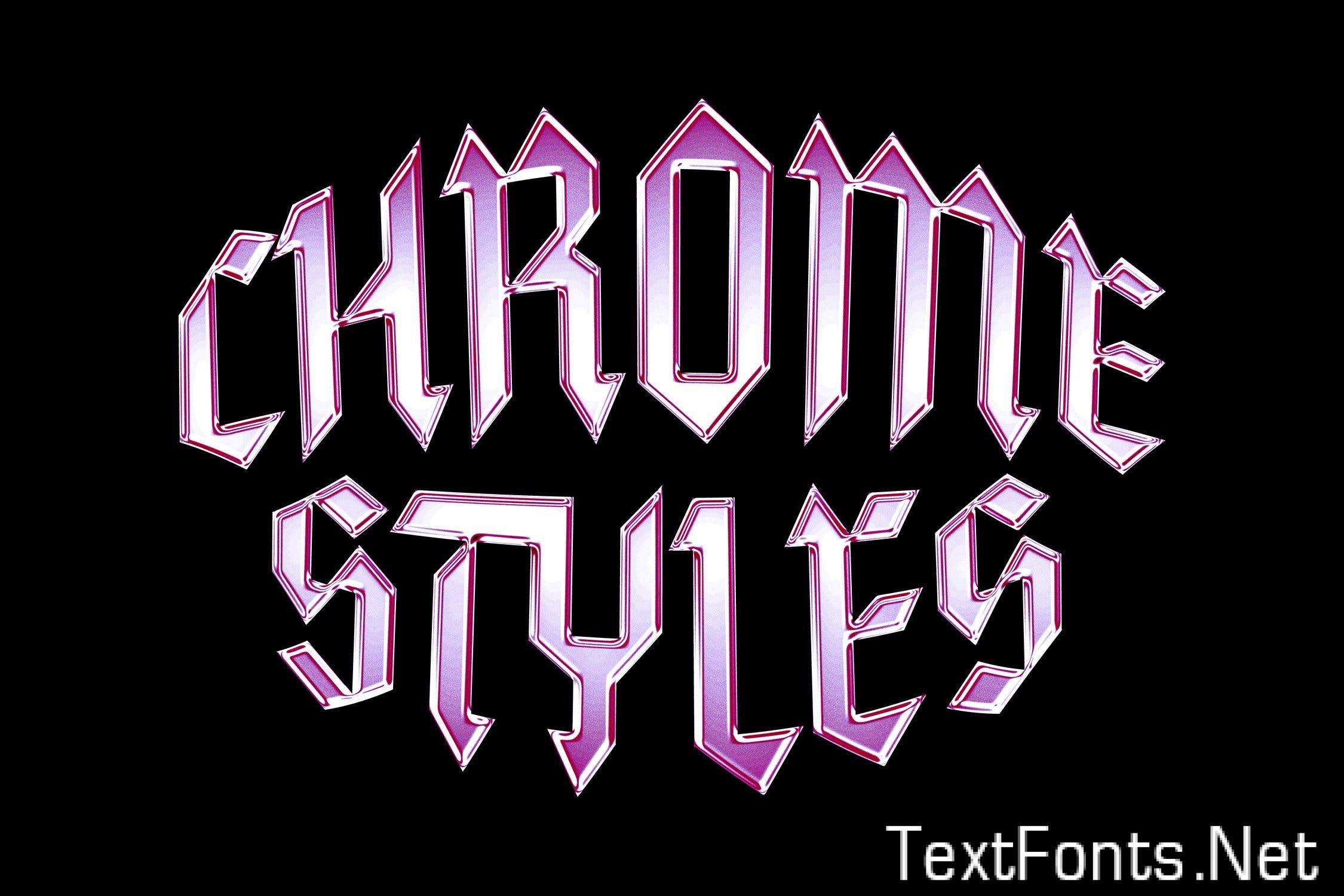
Galactic Chrome Text Styles L99UY35
Leaving the asset purely vintage would be an easy plan, but we don’t usually take this road when releasing graphic design assets. What does space also make you think of? Neon, lasers, explosions, aliens, mysterious lights — a fascinating crockpot of visuals, all mixed up in **12 high-quality text styles**. Both classic monochrome options and crazy colorful ones are presented, however the diversity of results is additionally provided by **18 gradient color palettes**. Let the typographic and logotype experiments begin this instant!